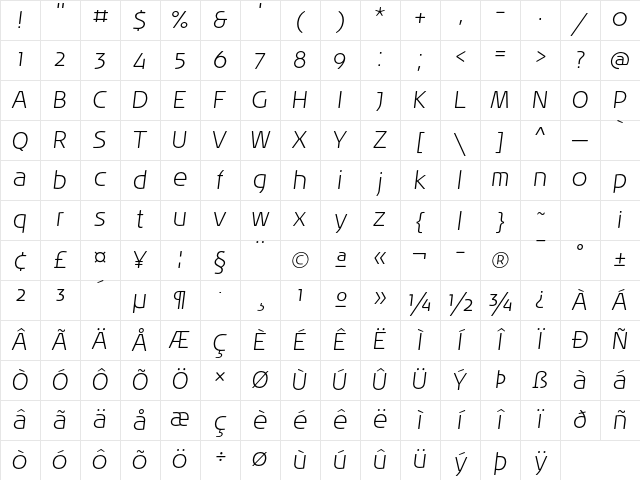
Noa LT Std Light Oblique
Style: Light Oblique
Designer: Nina Lee Storm
Design Context for Noa LT Std
Noa LT Std is a composed and adaptable typeface that performs quietly and consistently across a wide range of design contexts. The slanted form adds forward momentum and visual energy. Its slender proportions lend an understated elegance to any composition.